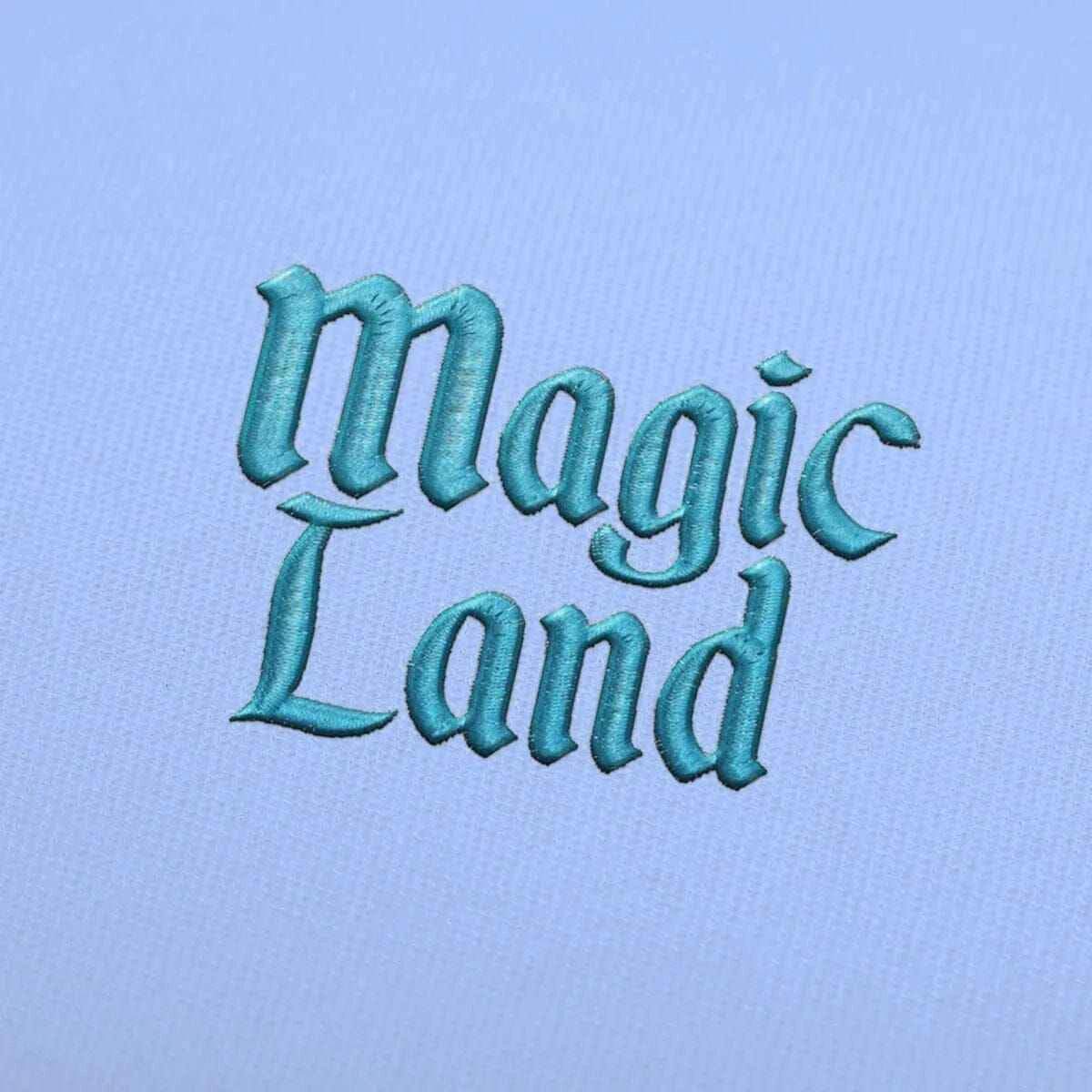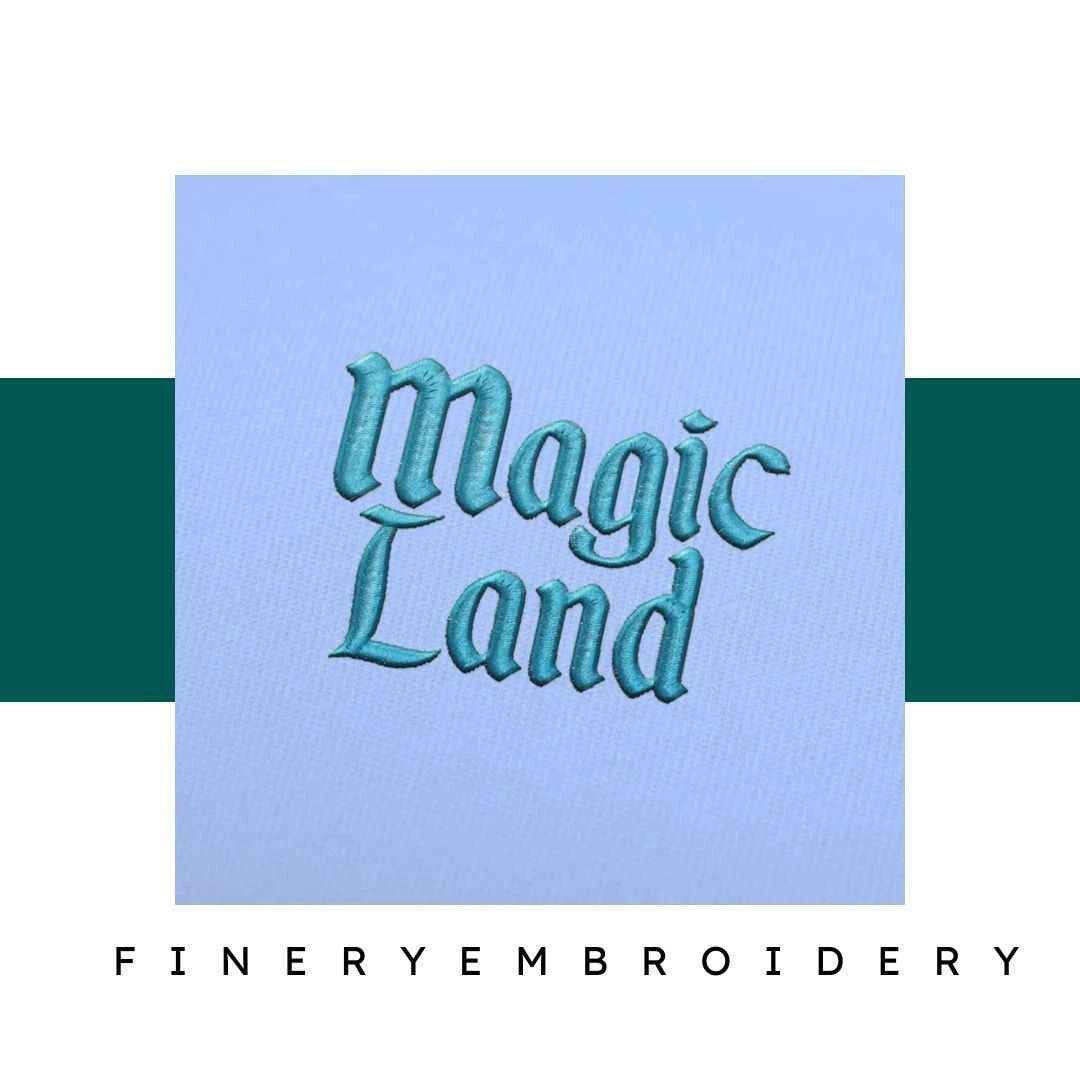
Unleash your creativity with the Magic Land Embroidery Alphabet Font Set, where every letter is a work of art waiting to inspire your next project!
Introducing the Magic Land Embroidery Alphabet Font Set, a delightful collection designed to elevate your embroidery projects. This enchanting font set features elegant and high-quality designs that will breathe life into your creations. With intricate details and superior craftsmanship, it's perfect for those looking to add a sprinkle of magic to their work. Whether you're a seasoned embroiderer or just starting, this font set is here to inspire your imagination.
Why You'll Love This Design
One of the standout features of the Magic Land Embroidery Alphabet Font Set is its elegant design, which adds a whimsical touch to any project. The intricate details create a luxurious feel that will impress anyone who sees your work. Imagine the joy of using fonts that not only look stunning but also reflect your creativity and style!
Creative Applications
The possibilities are endless with the Magic Land Embroidery Alphabet Font Set! Use it to personalize gifts for loved ones, create unique home decor, or add a special touch to your sewing projects. The versatility of this font set allows you to explore various creative applications, from monograms on towels to whimsical quotes on wall hangings. Let your creativity run wild!
Digitized for Passionate Embroiderers
- Perfect for adding a touch of charm to your embroidery projects!
Details & Craftsmanship
Unleash your creativity with the Magic Land Embroidery Alphabet Font Set, where every letter is a work of art waiting to inspire your next project!
Introducing the Magic Land Embroidery Alphabet Font Set, a delightful collection designed to elevate your embroidery projects. This enchanting font set features elegant and high-quality designs that will breathe life into your creations. With intricate details and superior craftsmanship, it's perfect for those looking to add a sprinkle of magic to their work. Whether you're a seasoned embroiderer or just starting, this font set is here to inspire your imagination.
Why You'll Love This Design
One of the standout features of the Magic Land Embroidery Alphabet Font Set is its elegant design, which adds a whimsical touch to any project. The intricate details create a luxurious feel that will impress anyone who sees your work. Imagine the joy of using fonts that not only look stunning but also reflect your creativity and style!
Creative Applications
The possibilities are endless with the Magic Land Embroidery Alphabet Font Set! Use it to personalize gifts for loved ones, create unique home decor, or add a special touch to your sewing projects. The versatility of this font set allows you to explore various creative applications, from monograms on towels to whimsical quotes on wall hangings. Let your creativity run wild!
Digitized for Passionate Embroiderers
- Perfect for adding a touch of charm to your embroidery projects!